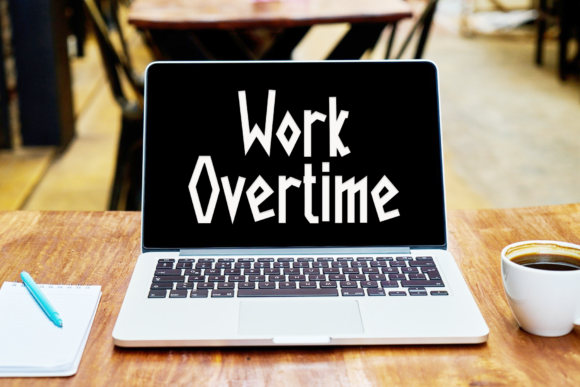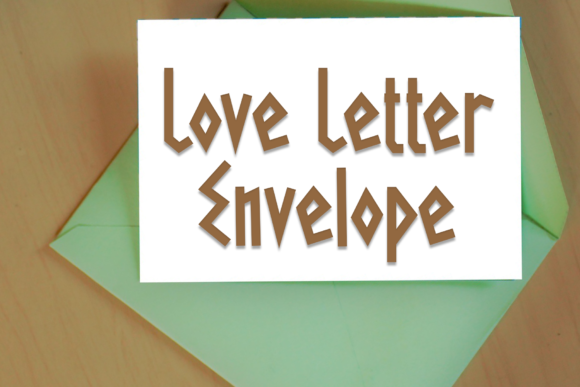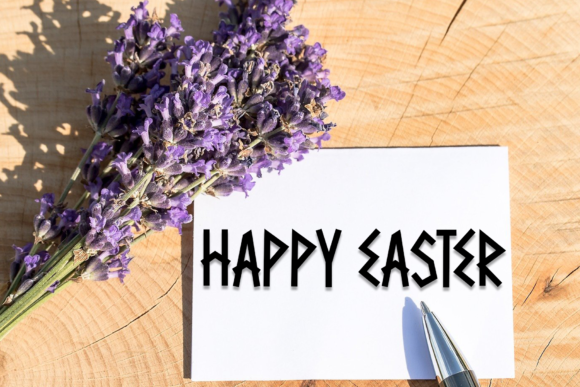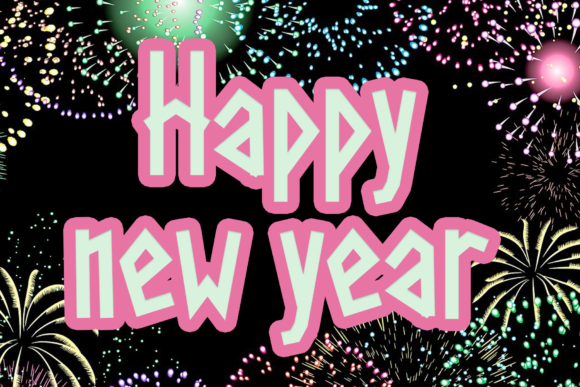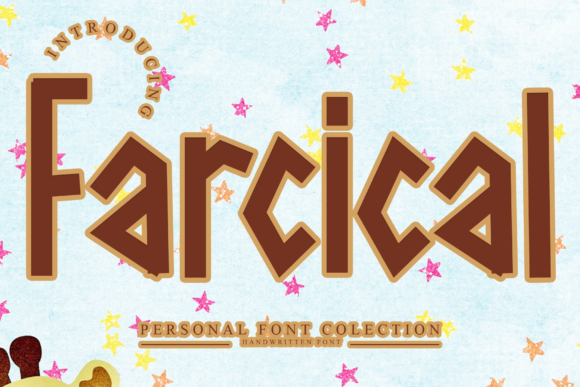
Farcical Font: Add a Touch of Whimsy to Your Designs
Are you tired of using the same old fonts in your designs? Do you want to add a touch of personality and whimsy to your projects? Look no further than Farcical Font! This fun and quirky display font is perfect for designers and crafters who want to make their ideas stand out.
What is Farcical Font?
Farcical Font is a unique and eye-catching display font that is sure to add a dash of humor and playfulness to any design. With its irregular shapes and comical flair, this font is perfect for creating spectacular designs that will leave a lasting impression. Whether you’re working on a logo, poster, or social media graphic, Farcical Font is sure to make your ideas even more realistic and engaging.
Features of Farcical Font
So, what makes Farcical Font so special? Here are just a few of its key features:
- Fun and quirky design: Farcical Font has a unique and playful design that is sure to add a touch of whimsy to any project.
- Display font: This font is specifically designed for display purposes, making it perfect for headlines, titles, and other attention-grabbing elements.
- Easy to read: Despite its playful design, Farcical Font is still easy to read, making it perfect for use in a variety of design applications.
- Versatile: Farcical Font can be used in a wide range of design projects, from logos and posters to social media graphics and more.
How to Use Farcical Font
So, how can you use Farcical Font in your designs? Here are a few ideas to get you started:
- Create eye-catching headlines: Use Farcical Font to create bold and attention-grabbing headlines that will draw readers in.
- Add personality to your logos: Farcical Font is perfect for adding a touch of personality and whimsy to your logos and branding materials.
- Make your posters pop: Use Farcical Font to create eye-catching posters that will stand out from the crowd.
- Elevate your social media graphics: Farcical Font is perfect for use in social media graphics, where it can help you stand out and grab attention.
Tips for Using Farcical Font
Here are a few tips to keep in mind when using Farcical Font:
- Use it sparingly: Farcical Font is a bold and attention-grabbing font, so use it sparingly to avoid overwhelming your design.
- Pair it with a simple font: Pair Farcical Font with a simple font to create visual interest and add contrast to your design.
- Experiment with colors: Farcical Font looks great in a variety of colors, so don’t be afraid to experiment and find the perfect hue for your design.
In conclusion, Farcical Font is a fun and quirky display font that is perfect for designers and crafters who want to add a touch of personality and whimsy to their designs. With its irregular shapes and comical flair, this font is sure to make your ideas even more realistic and engaging. So why not give Farcical Font a try and see the difference it can make in your designs?